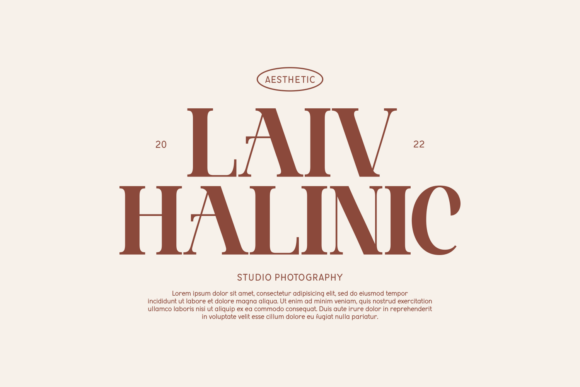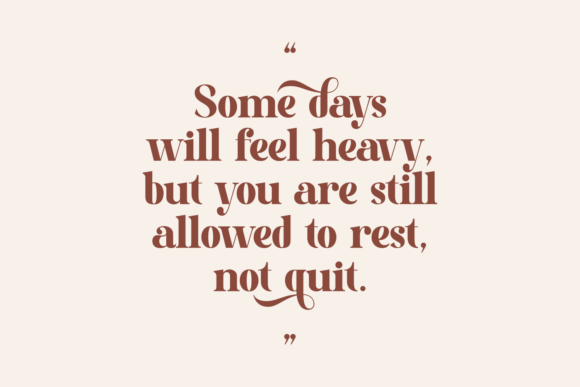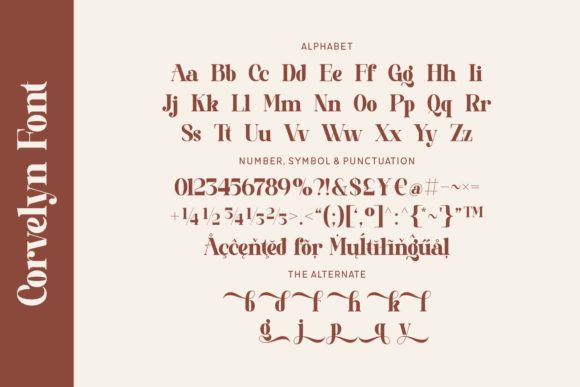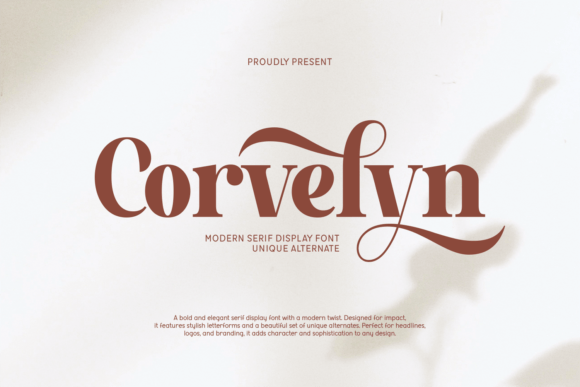
Introducing Corvelyn Font: Elevate Your Designs with Elegance and Impact
In the realm of typography, a font can make all the difference in the success of a design project. For designers and crafters seeking to leave a lasting impression, Corvelyn Font emerges as a game-changer. This modern serif display font is not just a typeface; it’s a statement piece designed to elevate your creative work. With its bold and elegant presence, Corvelyn is poised to transform your headlines, logos, and branding with its stylish letterforms and unique alternate styles.
The Essence of Corvelyn Font
Corvelyn Font is a masterpiece of modern typography, crafted with precision and a keen eye for detail. Its design is centered around creating an impact, making it perfect for projects where making a statement is key. Whether you’re working on a logo, a headline, or any form of branding, Corvelyn brings a level of sophistication and elegance that’s hard to match.
Unique Features of Corvelyn
- Modern Serif Display Font: Corvelyn boasts a contemporary serif design that sets it apart from traditional typefaces. Its modernity brings a fresh look to any design, making it instantly noticeable.
- Bold and Elegant: The font’s bold presence ensures it commands attention, while its elegant strokes add a touch of sophistication. This combination makes Corvelyn versatile, suitable for a wide range of design applications.
- Unique Alternate Style: What truly sets Corvelyn apart is its unique alternate style. This feature allows designers to experiment with different looks within the same font family, providing endless possibilities for creative expression.
- Stylish Letterforms: Each letterform in Corvelyn is meticulously designed to contribute to the overall aesthetic of your design. The stylish and clean lines ensure readability while adding a decorative element to your work.
Applications of Corvelyn Font
Corvelyn’s versatility makes it suitable for various design projects. Here are some of the areas where Corvelyn can make a significant impact:
- Headlines: Grab the attention of your audience with Corvelyn’s bold and elegant headlines. It’s perfect for newspaper articles, magazine covers, and website headers.
- Logos: Create a lasting impression with a logo designed using Corvelyn. Its unique and stylish letterforms ensure your brand stands out.
- Branding: Consistency in branding is crucial, and Corvelyn helps you achieve that with its elegant and professional look. It’s ideal for packaging, advertisements, and any material representing your brand.
Why Choose Corvelyn Font?
In a market flooded with typefaces, Corvelyn Font offers several reasons to be your top choice:
- Uniqueness: Its modern serif design and unique alternate style ensure your designs don’t get lost in the crowd.
- Versatility: Suitable for a wide range of projects, from digital content to print materials.
- Elegance: Adds a touch of sophistication to any design, enhancing its appeal.
- Impact: Designed to make a statement, Corvelyn ensures your message gets across effectively.
Corvelyn Font is more than just a typeface; it’s a tool for designers and crafters to express their creativity and elevate their work. With its modern serif design, elegant presence, and unique features, Corvelyn is set to become a staple in the world of typography. Whether you’re aiming to create bold headlines, distinctive logos, or comprehensive branding materials, Corvelyn is the perfect companion for your creative journey. Embrace Corvelyn Font today and witness the transformation in your designs.